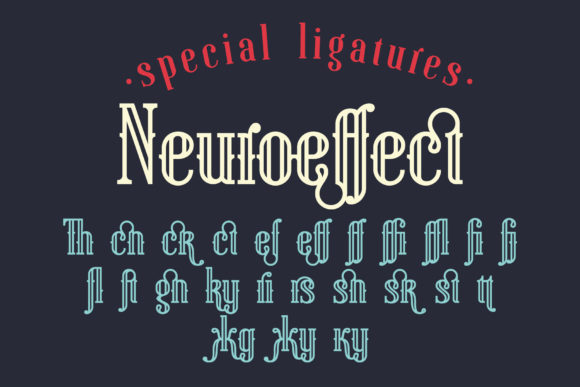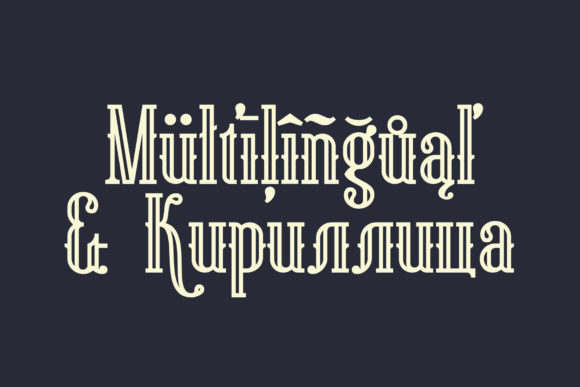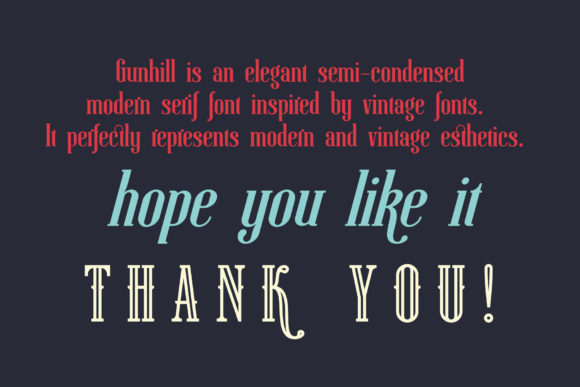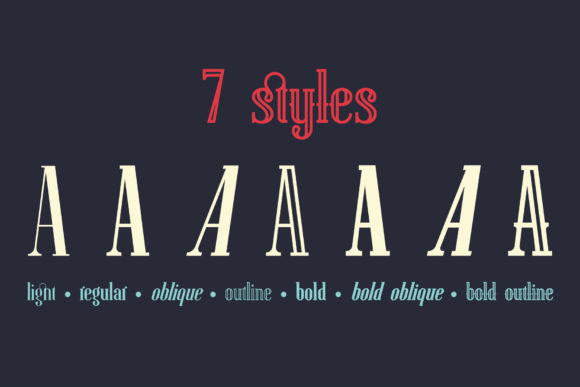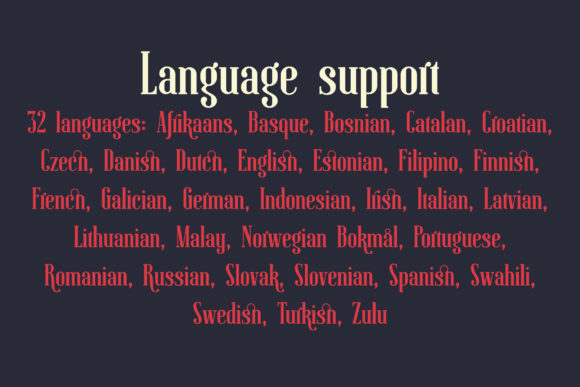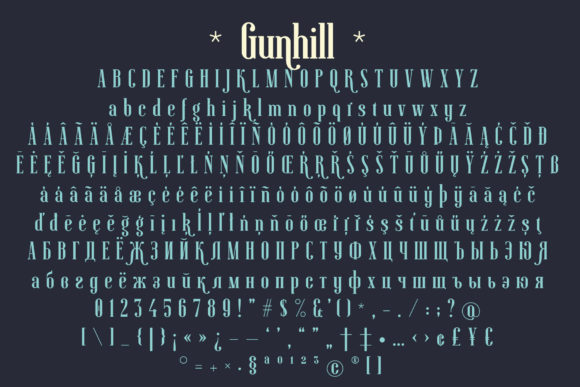
Introduction to Gunhill Family Font
Have you ever been in the midst of a creative project, staring at a blank page, and suddenly a spark of inspiration hits you? The words start flowing, and your design begins to take shape. It’s a moment of pure magic, and the right font can make all the difference. That’s exactly what the Gunhill Family Font is designed to do – provide the perfect harmony of modern and retro aesthetics to elevate your creative vision.
For designers, finding the right font can be a daunting task. That’s why we’re excited to introduce you to the Gunhill Family Font, a high-quality, elegant semi-condensed modern serif font family inspired by vintage fonts. With its transparent background and sleek design, this font is a valuable resource for any creative project. And the best part? It’s available for free download, making it an accessible design resource for designers of all levels.
Key Features of Gunhill Family Font
- High-quality design with a unique, elegant style, making it perfect for creative projects and design resources.
- Part of a larger font family, offering a range of styles and weights to suit different design needs.
- Perfect for use in creative projects, such as logos, branding, and typography-based designs, where a high-quality font is essential.
Honest Review: Gunhill Family Font
One of the standout features of this font is its high quality. It’s clear that the designers put a lot of effort into creating a cohesive and visually appealing set of characters. The transparent background option is also a nice touch, making it easy to use this font in a variety of different design contexts.
- High-quality design and attention to detail
- Only available in a limited range of weights and styles
- Not suitable for use in very large or complex designs
- May require some manual adjustments for optimal use
Overall, I’m impressed with the Gunhill Family Font and would recommend it to designers looking for a reliable and high-quality design resource. While it may have some limitations, its benefits far outweigh its drawbacks.
The Gunhill Family Font is a high-quality, free download design resource ideal for various creative projects. Its versatility and transparent background make it a great addition to any design.
The Gunhill Family Font is ideal for:
Logo designs
Brochures and flyers
Infographics
Business cards